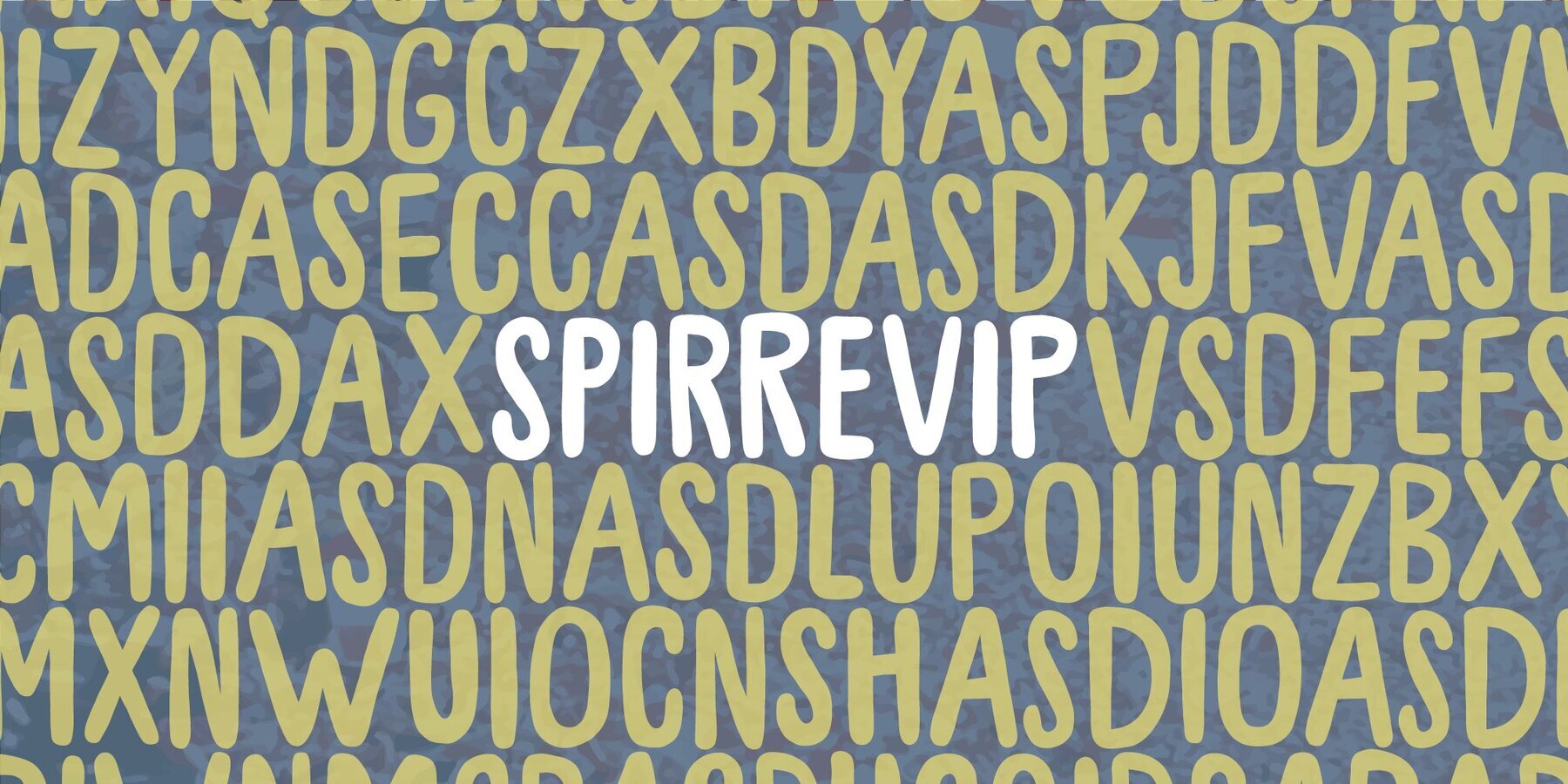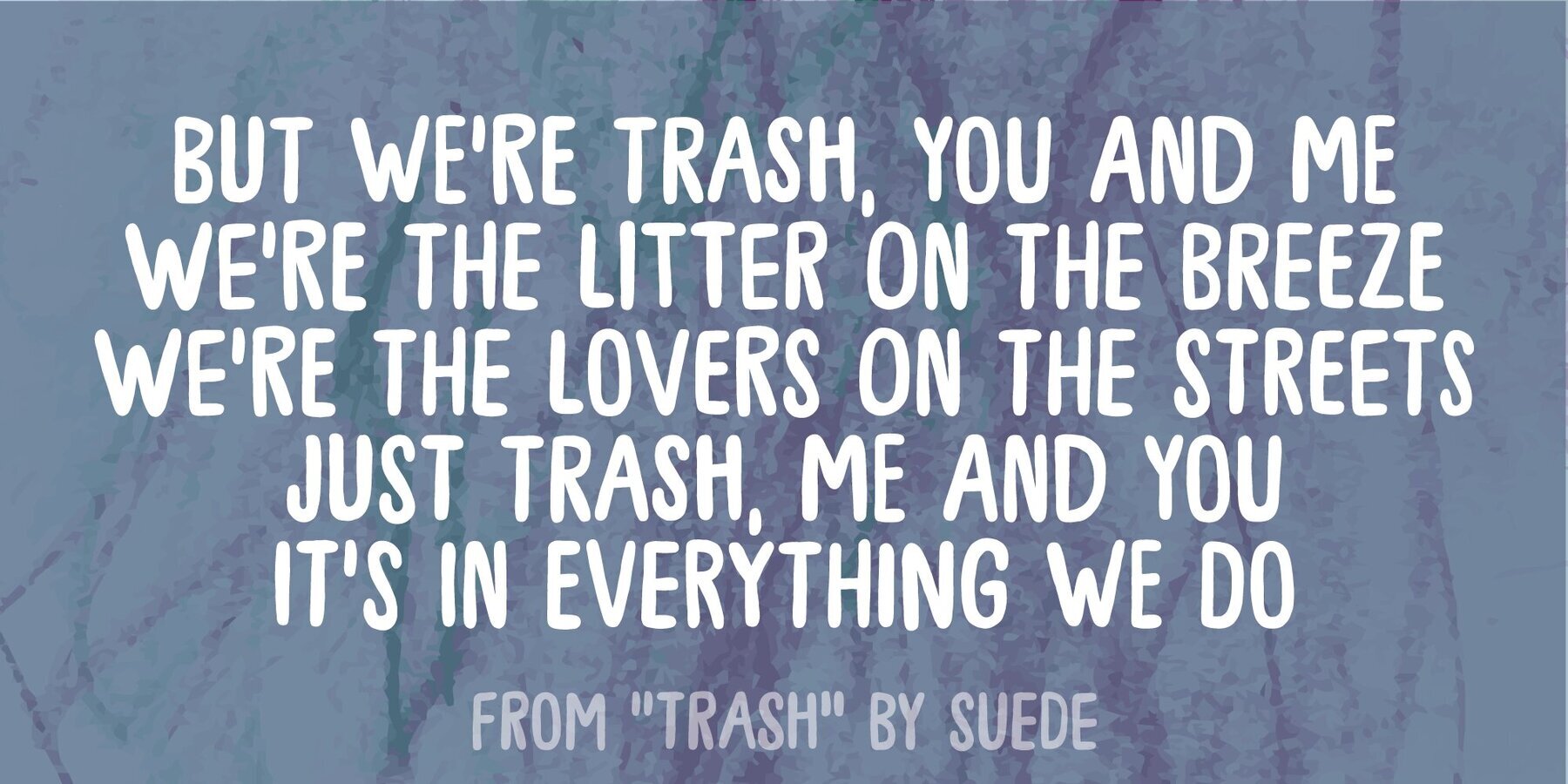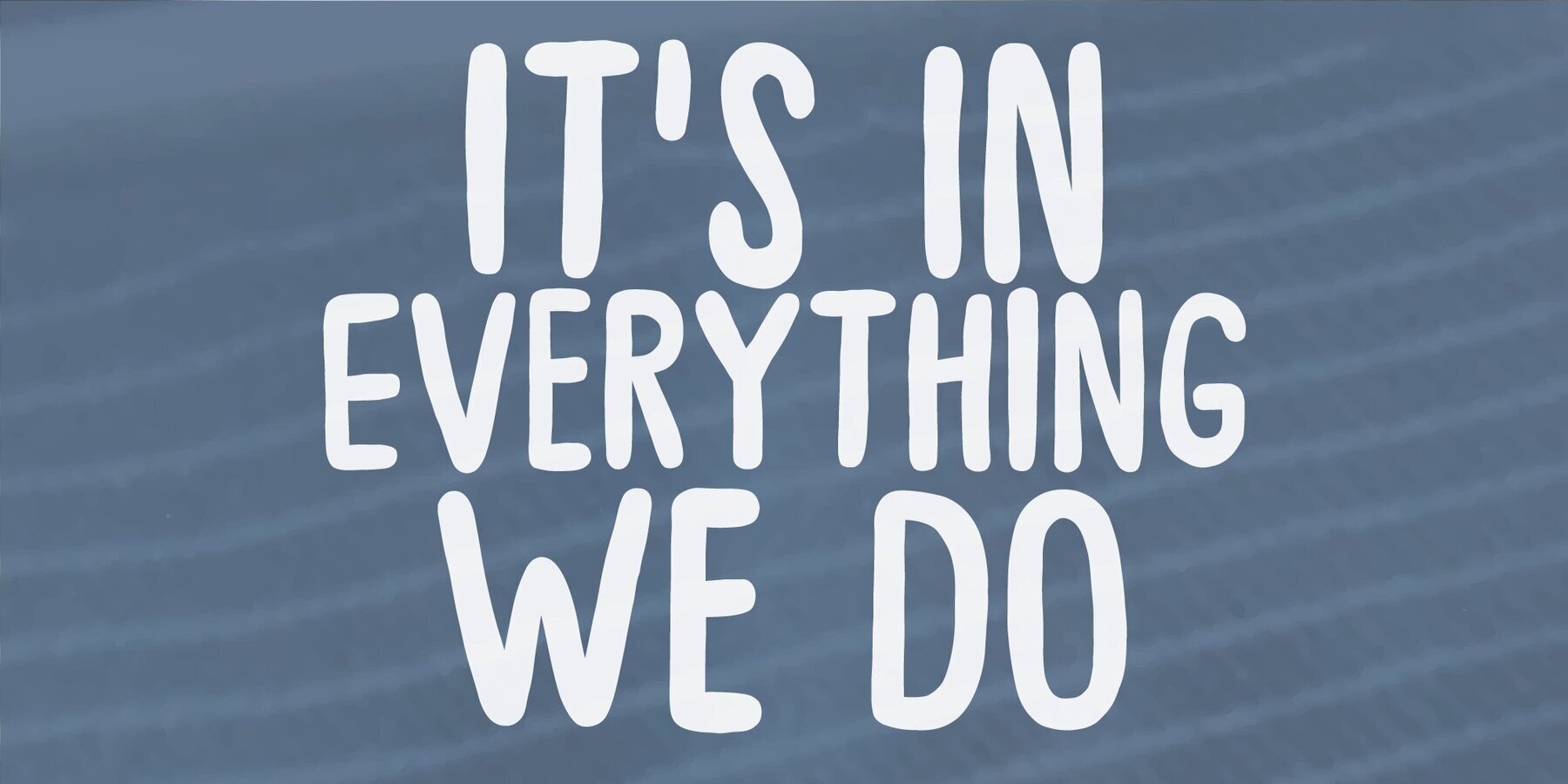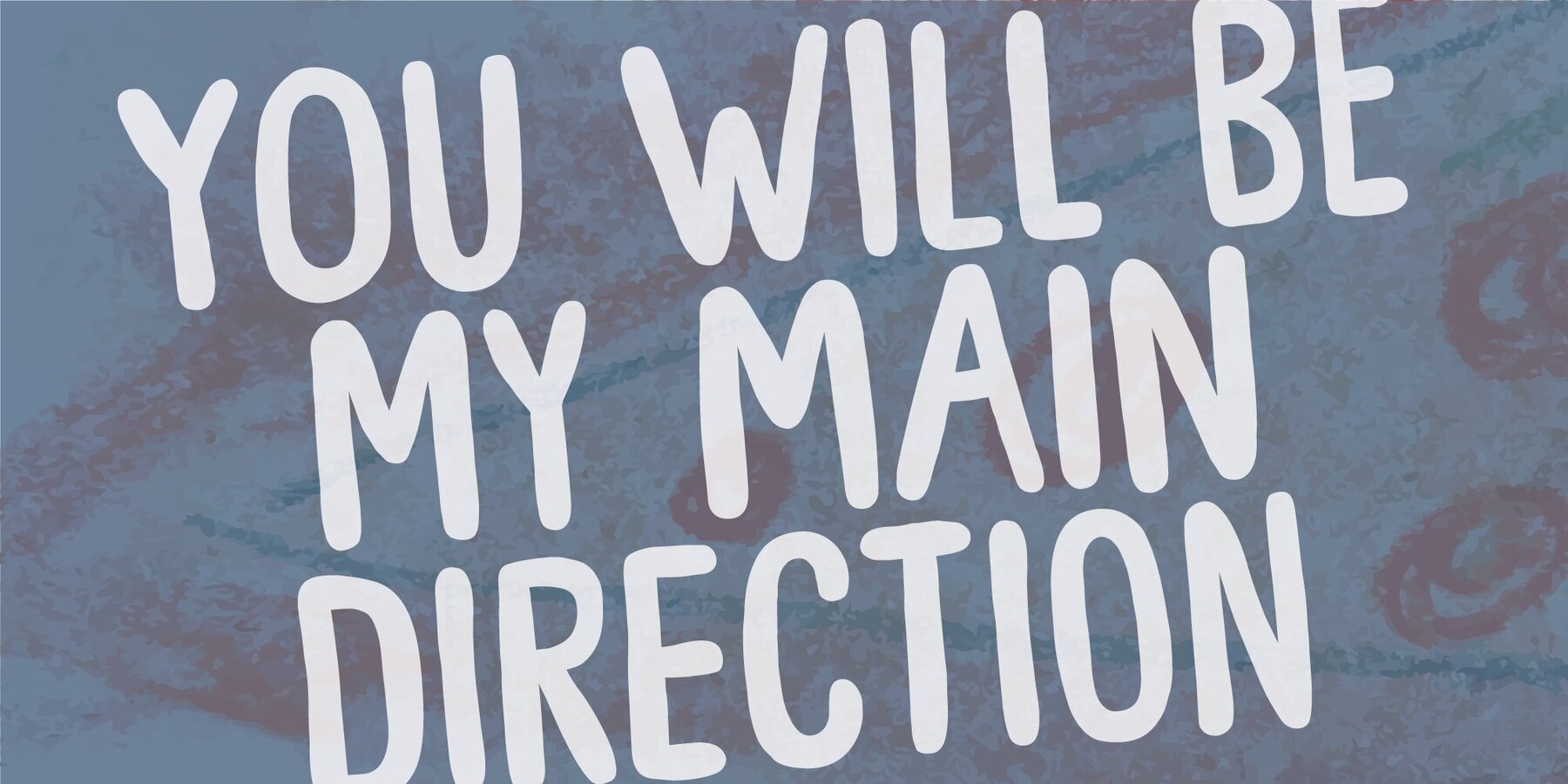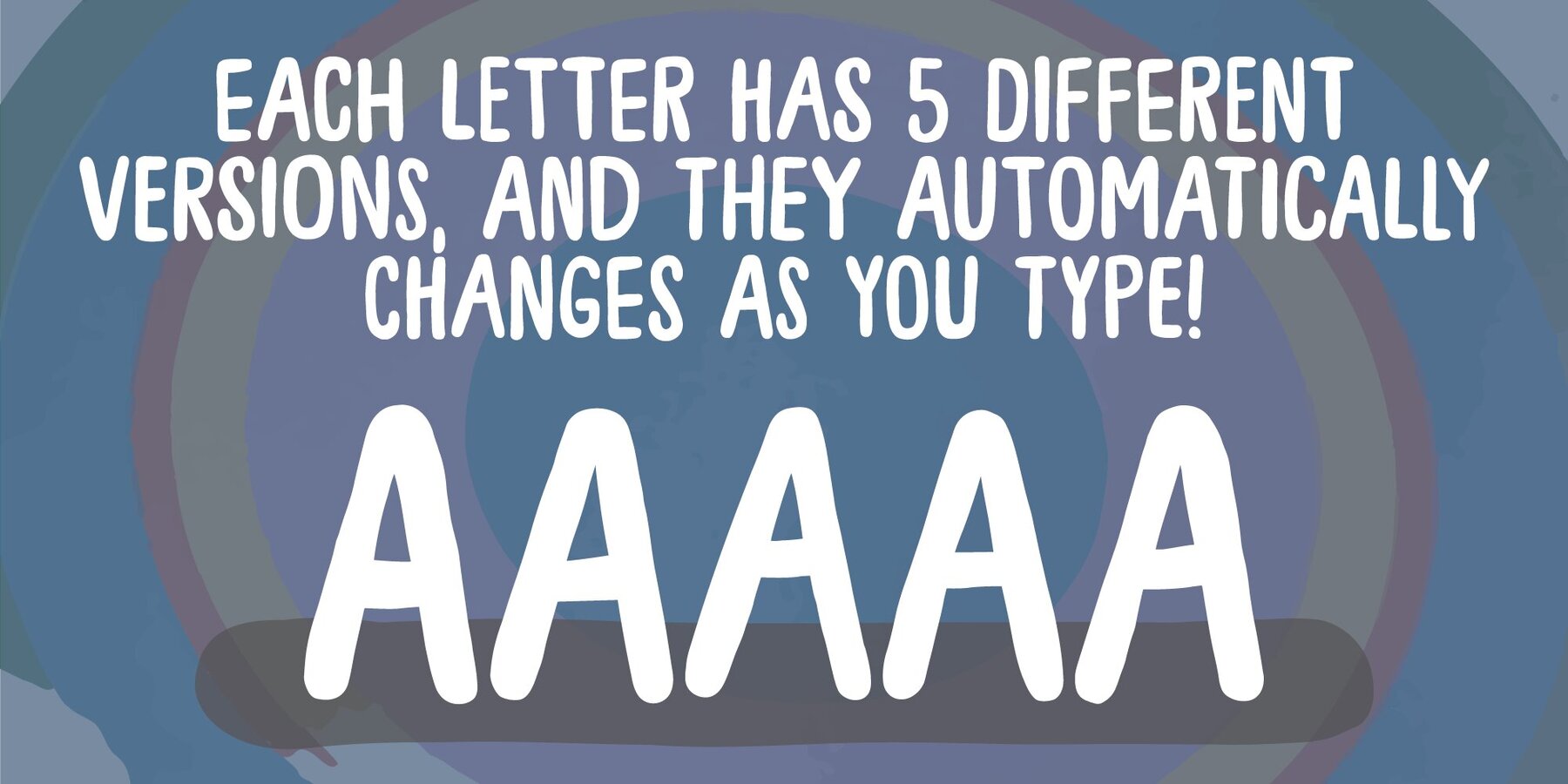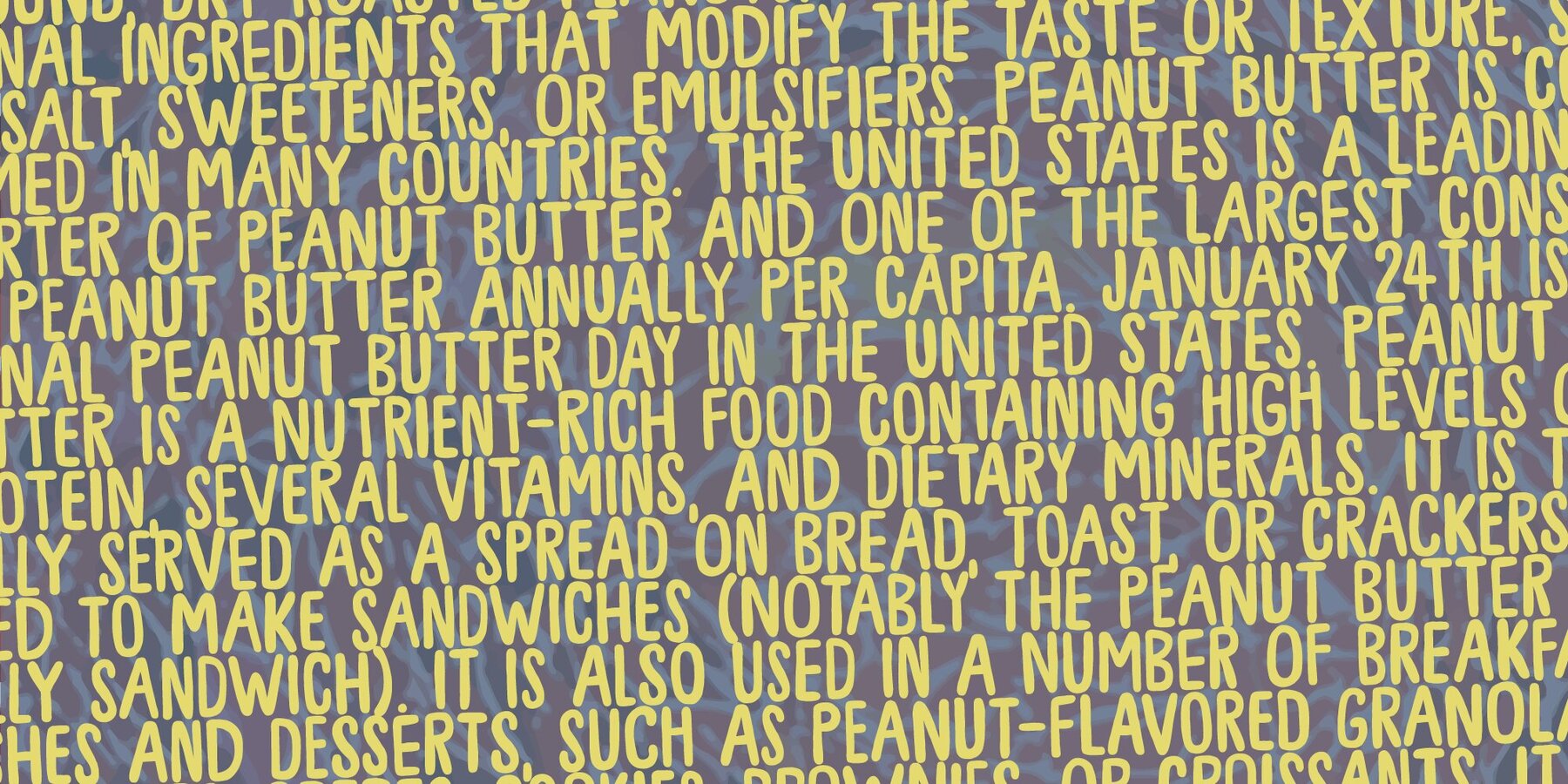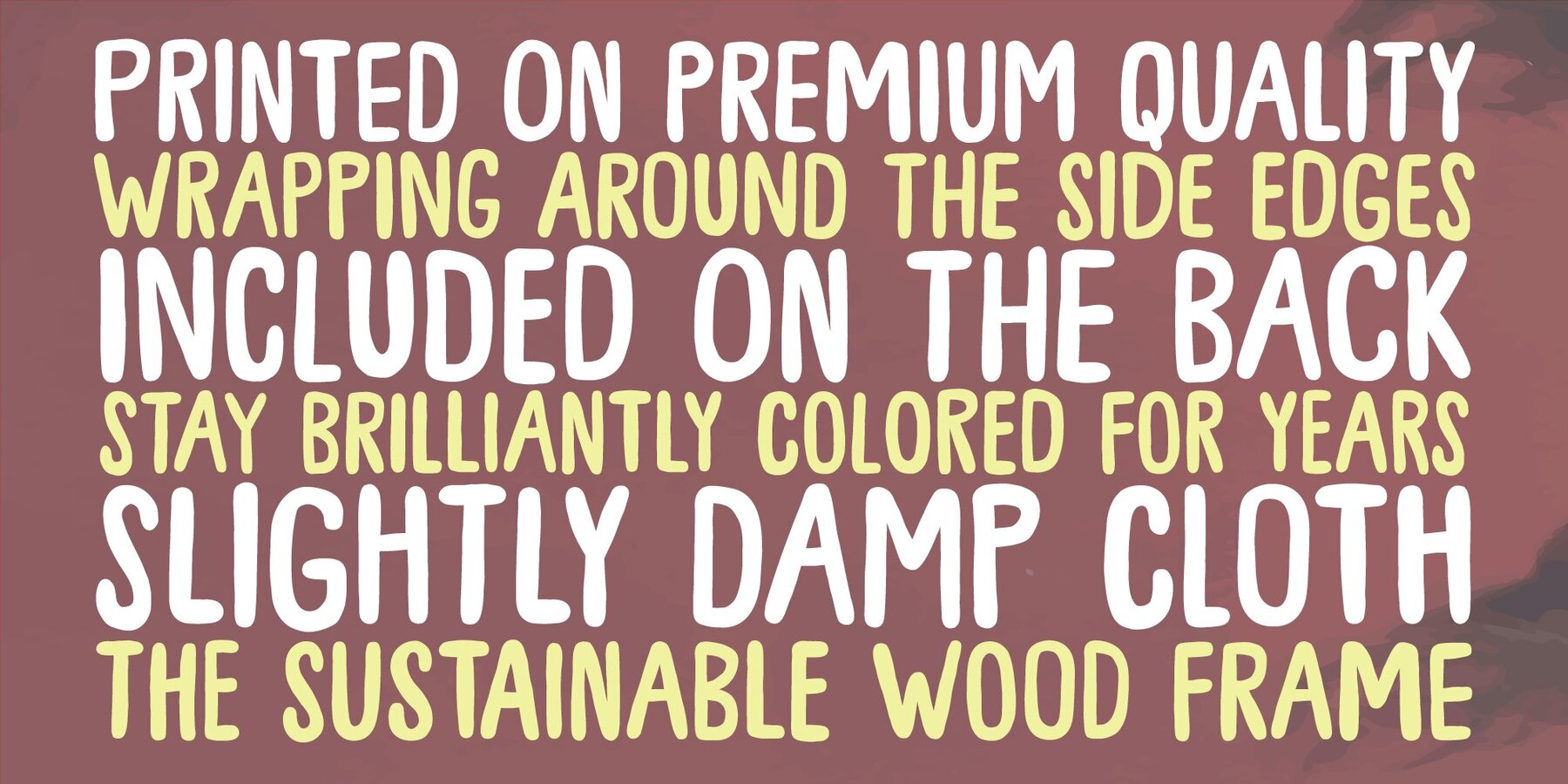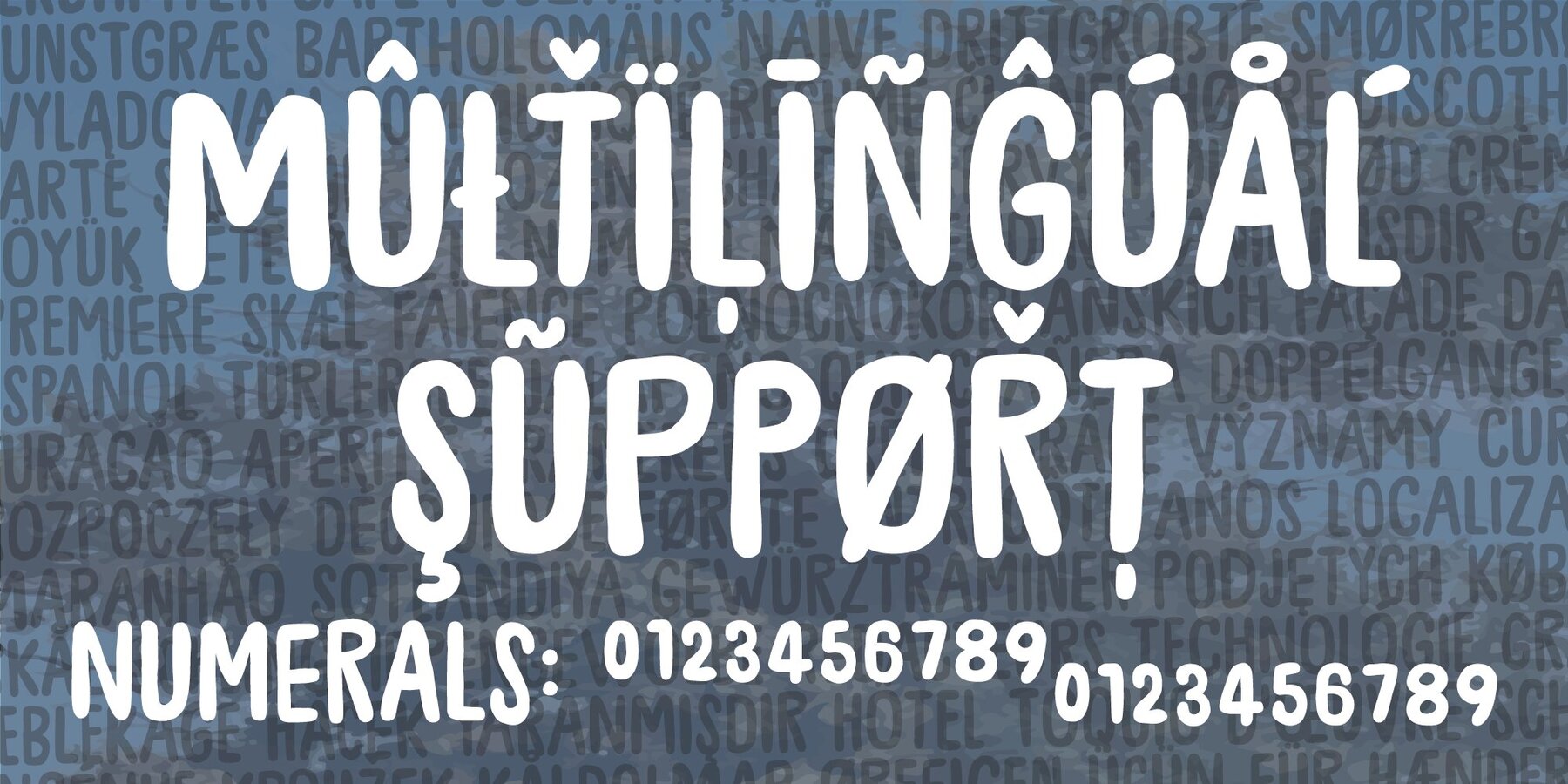
Spirrevip Font
Spirrevip Regular
Spirrevip Italic
Spirrevip is for that moment when you need something legible, organic and obviously handmade at the same time. The letters are straightforward, yet variable in thickness of strokes, height and width. Spirrevip is definitely playful and serious at the same time. I have added 5 slightly different versions of each letter, and they automatically changes as you type!